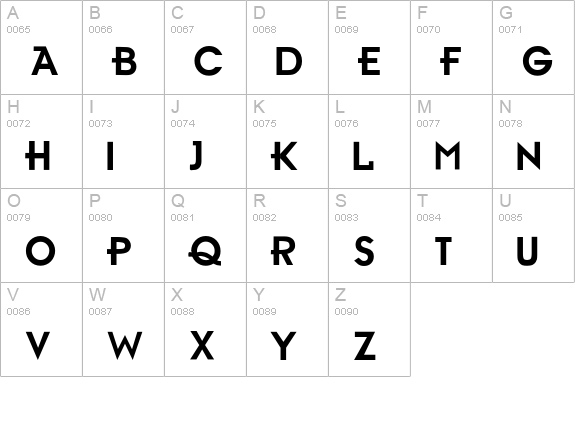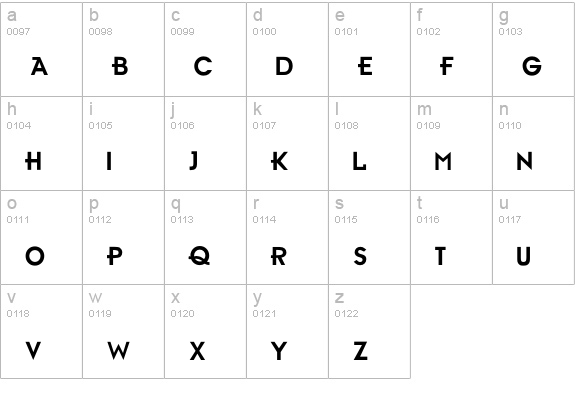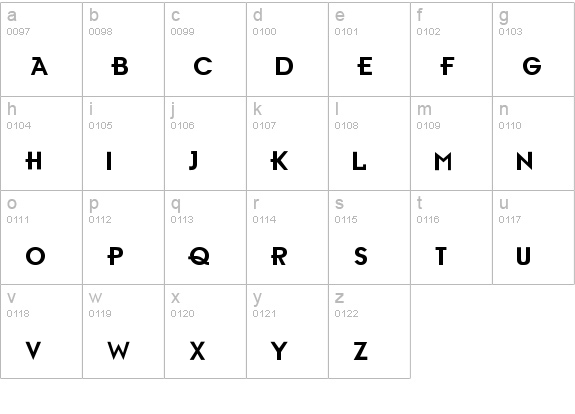
Ambient Font Details
Ambient font is a modern and elegant typeface that exudes a sense of tranquility and sophistication. Its sleek and minimalistic design makes it perfect for a wide range of projects, from branding to editorial design. The gentle curves and clean lines of Ambient font create a harmonious and calming visual experience that will captivate your audience. The best part is that Ambient font is available for free download at FontsMarket.com. This means you can easily access this beautiful typeface and use it in your projects without any cost. Whether you're designing a website, creating a poster, or working on a logo, Ambient font is a versatile choice that will elevate your design and leave a lasting impression. Download Ambient font today and add a touch of elegance to your work.